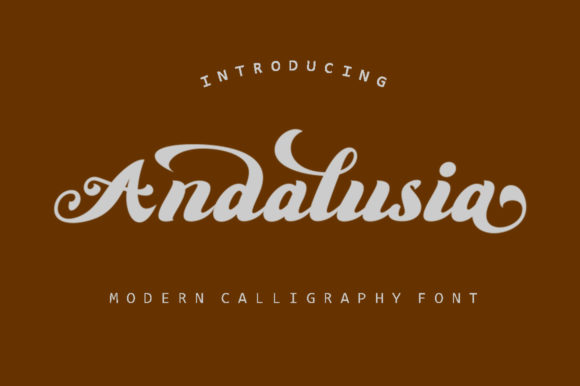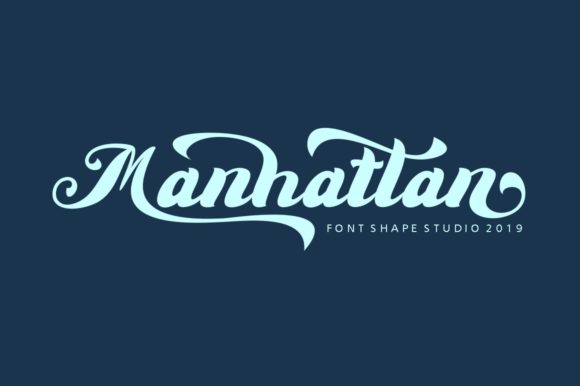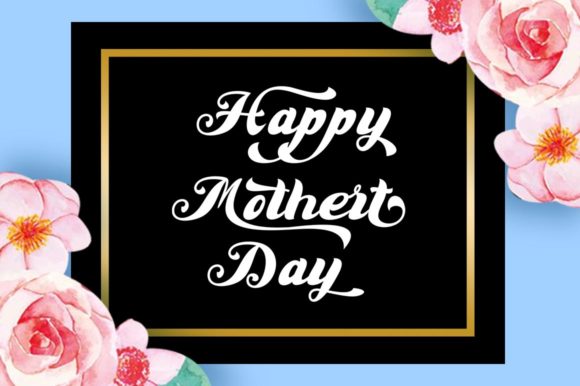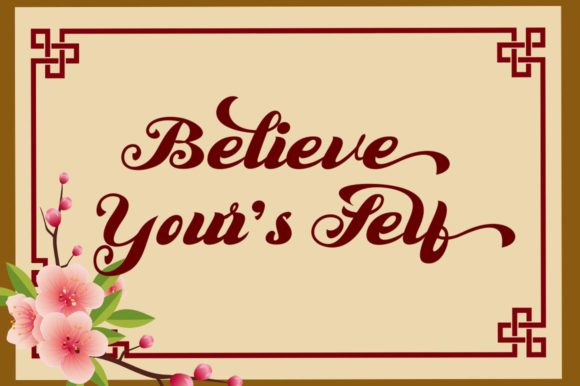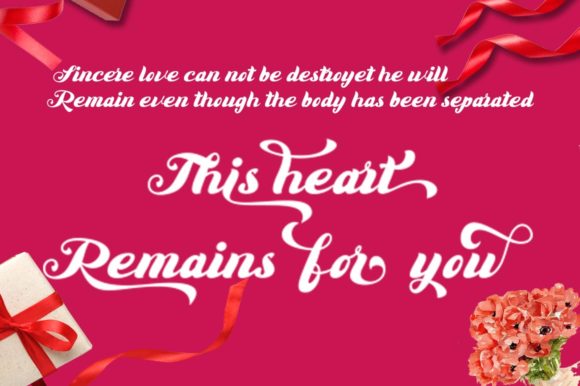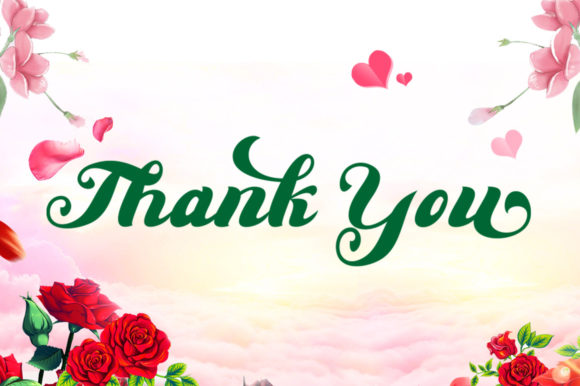
HomeScript FontsAnadalusia Font Script Fonts Anadalusia Font FacebookXPinterestWhatsApp Anadalusia Font Poster 2 Anadalusia Font Poster 3 Anadalusia Font Poster 4 Anadalusia Font Poster 5 Anadalusia Font Poster 6 About Anadalusia Font Anadalusia feels funky, fresh and cool. This retro-themed script will bring back the 70s in an instant! DOWNLOAD ON CREATIVE FABRICAThis font is sold and delivered by Creative Fabrica. Font Canyon may earn a commission if you buy through this link. People also explored Tailorbird Font Yellow Fresh Font Peachy Font Lushtophia Font Pencil Doodles Font Story Ghosting Font Manuver Font Intellecta Monogram Caps Astroz 336 0 TagsAnadalusia Font Previous articleSalvyna FontNext articleFablus Font LEAVE A REPLY Cancel reply Comment: Please enter your comment! Name:* Please enter your name here Email:* You have entered an incorrect email address! Please enter your email address here Website: Save my name, email, and website in this browser for the next time I comment. Personal Use Free Makcex Personal Use Free Read more about this font Malinda Personal Use Free Read more about this font Winter Soldier Personal Use Free Read more about this font Sunshine Tropical Font Personal Use Free Read more about this font BLOG Free Fonts Risk: Why Free Fonts Can Be Dangerous for Designers Free Fonts Risk: Why Free Fonts Can Be Dangerous for Designers Using free fonts is a common practice in web and graphic design. However, the... Where to Buy American Fonts Online in 2024 Using Fonts in Digital Marketing: Tips to Strengthen Your Brand Identity Transform Your Website: Elevate Your Typography with 7 Best Web Font Generators